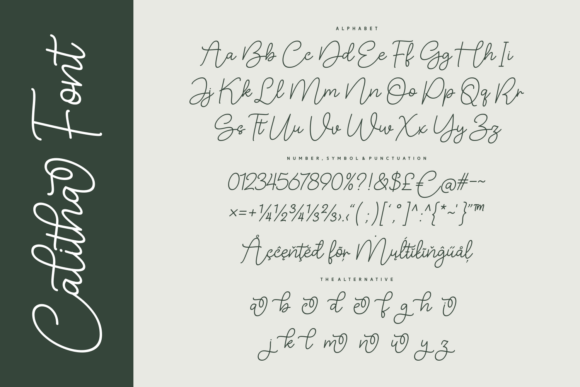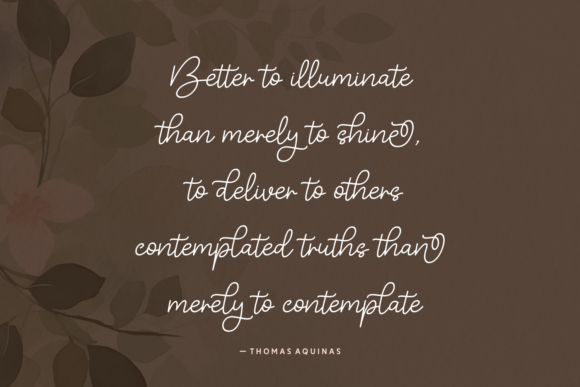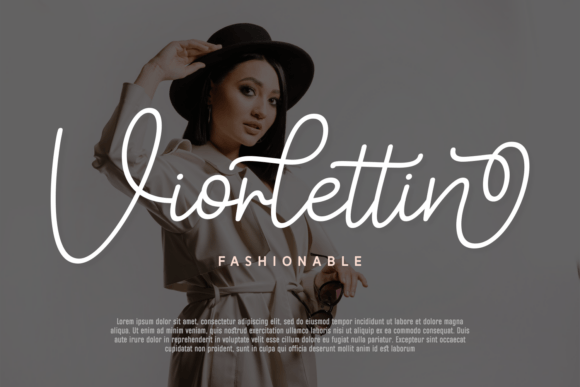
Discover the Elegance of Calitha Font: A Refined Monoline Script Font
In the world of typography, fonts play a crucial role in conveying the tone and personality of a design. For designers and crafters looking for a font that exudes elegance and natural charm, Calitha Font is an excellent choice. This refined monoline script font has been gaining popularity for its smooth curves, flowing strokes, and minimalist yet artistic aesthetic.
What is Calitha Font?
Calitha Font is a modern script font that features a monoline design, characterized by smooth, continuous lines that create a sense of fluidity and movement. Its elegant curves and refined strokes make it perfect for designs that demand sophistication and poise. Whether you’re working on a branding project, creating a logo, or designing event invitations, Calitha Font is an excellent choice.
Key Features of Calitha Font
- Smooth Curves and Flowing Strokes: Calitha Font features smooth, flowing curves that create a sense of natural elegance and charm.
- Monoline Design: The font’s monoline design gives it a modern and minimalist aesthetic, making it perfect for designs that require a touch of sophistication.
- Artistic and Refined: Calitha Font’s refined strokes and elegant curves make it an artistic and refined choice for designers and crafters.
- Versatile: This font is versatile and can be used for a wide range of design projects, from branding and logos to event invitations and more.
Uses of Calitha Font
Calitha Font is a versatile font that can be used for various design projects, including:
- Branding: Use Calitha Font to create elegant and sophisticated brand identities that convey a sense of refinement and poise.
- Logos: Create stunning logos that exude elegance and modernity with Calitha Font.
- Event Invitations: Add a touch of sophistication to your event invitations with Calitha Font’s elegant and refined design.
- Packaging Design: Use Calitha Font to create beautiful and eye-catching packaging designs that stand out on store shelves.
Benefits of Using Calitha Font
Using Calitha Font in your design projects offers several benefits, including:
- Unique and Elegant Design: Calitha Font’s unique and elegant design sets it apart from other fonts, making your designs stand out.
- High Readability: The font’s clear and refined design ensures high readability, even at small sizes.
- Customizable: Calitha Font can be easily customized to fit your design needs, making it a versatile choice.
Tips for Using Calitha Font Effectively
To get the most out of Calitha Font, follow these tips:
- Use it Sparingly: Use Calitha Font sparingly to create emphasis and add elegance to your designs.
- Pair it with Other Fonts: Pair Calitha Font with other fonts to create a unique and visually appealing design.
- Experiment with Colors and Textures: Experiment with different colors and textures to add depth and interest to your designs.
Calitha Font is a refined monoline script font that exudes elegance and natural charm. Its smooth curves, flowing strokes, and minimalist yet artistic aesthetic make it perfect for designs that demand sophistication. Whether you’re a designer or crafter, Calitha Font is an excellent choice for your next project. With its versatility, readability, and customizability, Calitha Font is sure to become a staple in your design toolkit.